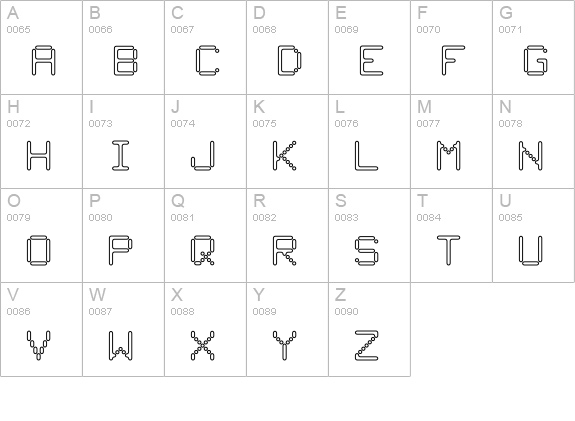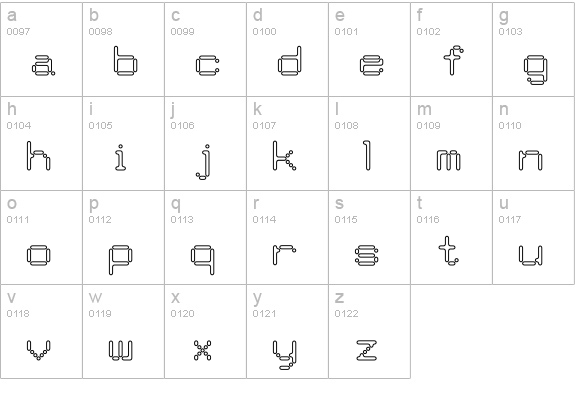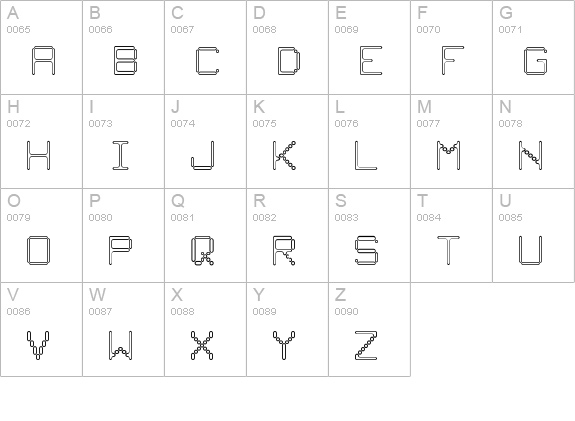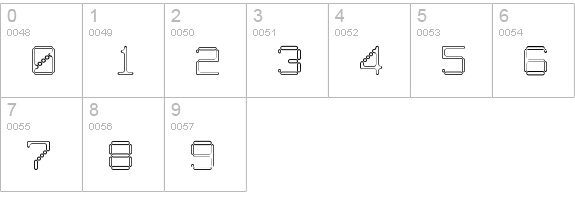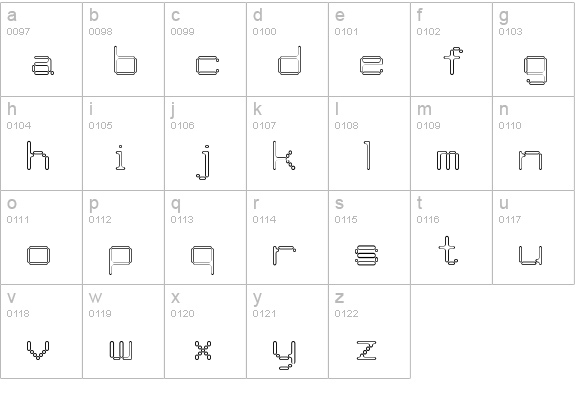
Therm-Open font is a visually stunning and versatile typeface that effortlessly combines elegance with a modern twist. With its clean lines and geometric shapes, this font is perfect for a wide range of design projects, from logos and branding to editorial layouts and web design. But what truly sets Therm-Open font apart is its unique and captivating style. The letters seem to dance on the page, creating a sense of movement and energy. Each character is meticulously crafted to perfection, ensuring a seamless and harmonious look when used in any context. One of the most appealing aspects of Therm-Open font is that it is freely available to download at FontsMarket.com. This means that designers and enthusiasts alike can access this incredible font without any cost. Whether you're a professional designer looking to elevate your work or a hobbyist searching for a font to add a touch of sophistication to your personal projects, Therm-Open font is the perfect choice. The versatility of Therm-Open font is also worth mentioning. It effortlessly adapts to various design styles and themes, making it suitable for both modern and traditional projects. Its wide range of weights and styles further adds to its flexibility, allowing you to experiment and create stunning typographic compositions that truly stand out. With Therm-Open font, you can bring your designs to life and captivate your audience with its elegance and uniqueness. So why wait? Start exploring the endless possibilities that Therm-Open font offers and elevate your design projects to new heights. Download it for free at FontsMarket.com and let your creativity soar.